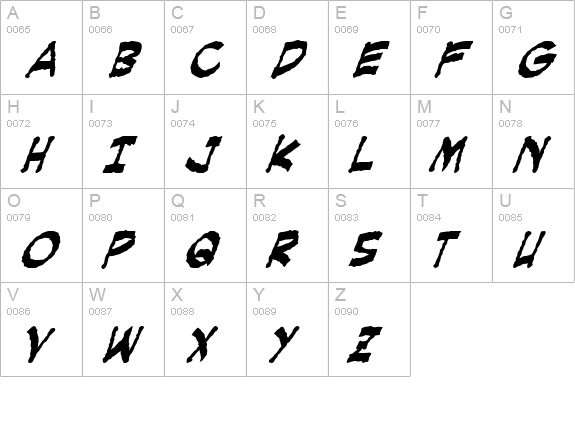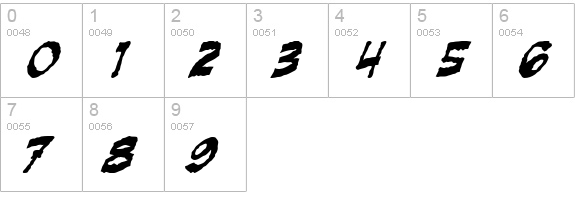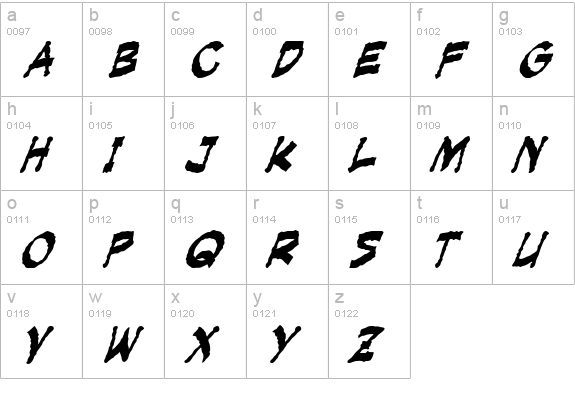
Creeping Evil Bold Font Details
Creeping Evil Bold is a strong, high-contrast variant in the Creeping typeface family \xE2\x80\x94 well suited to headlines, attention-grabbing titles, and strong calls-to-action.
Creeping Evil Bold font is a striking and ominous typeface designed to add a touch of mystery and darkness to your projects. With its sharp edges and eerie aesthetic, this font captures the essence of creeping evil with every letter. Perfect for horror-themed designs, Halloween invitations, or any project that requires a spooky twist. The best part? Creeping Evil Bold font is available for free download at FontsMarket.com. Don't miss out on this opportunity to add a touch of sinister elegance to your designs with this captivating font. Download it today and unleash the creeping evil within your creations.